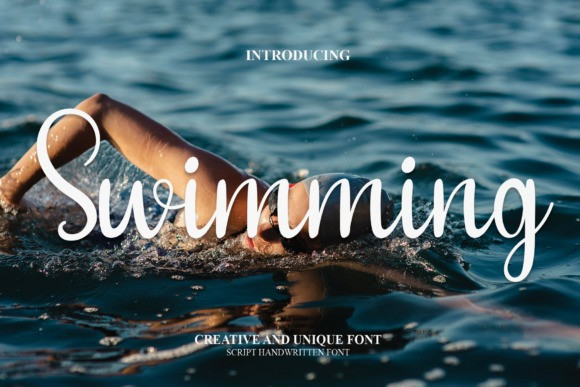
Swimming Font
Swimming Font is a well-balanced, free-flowing script font. It is suitable for any branding project like logos, t-shirt printing, sport designs, and more. It will look outstanding in a wide range of contexts.